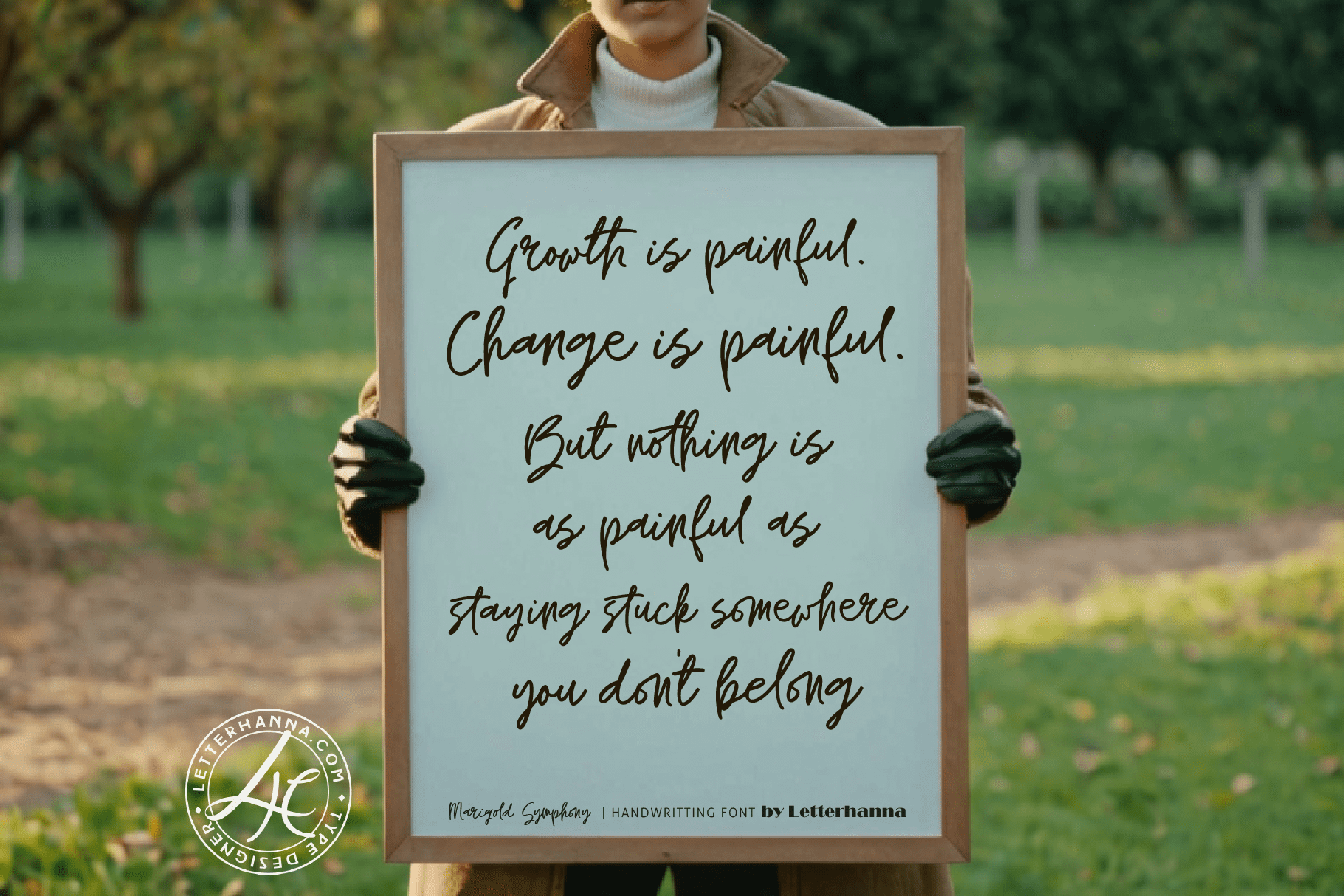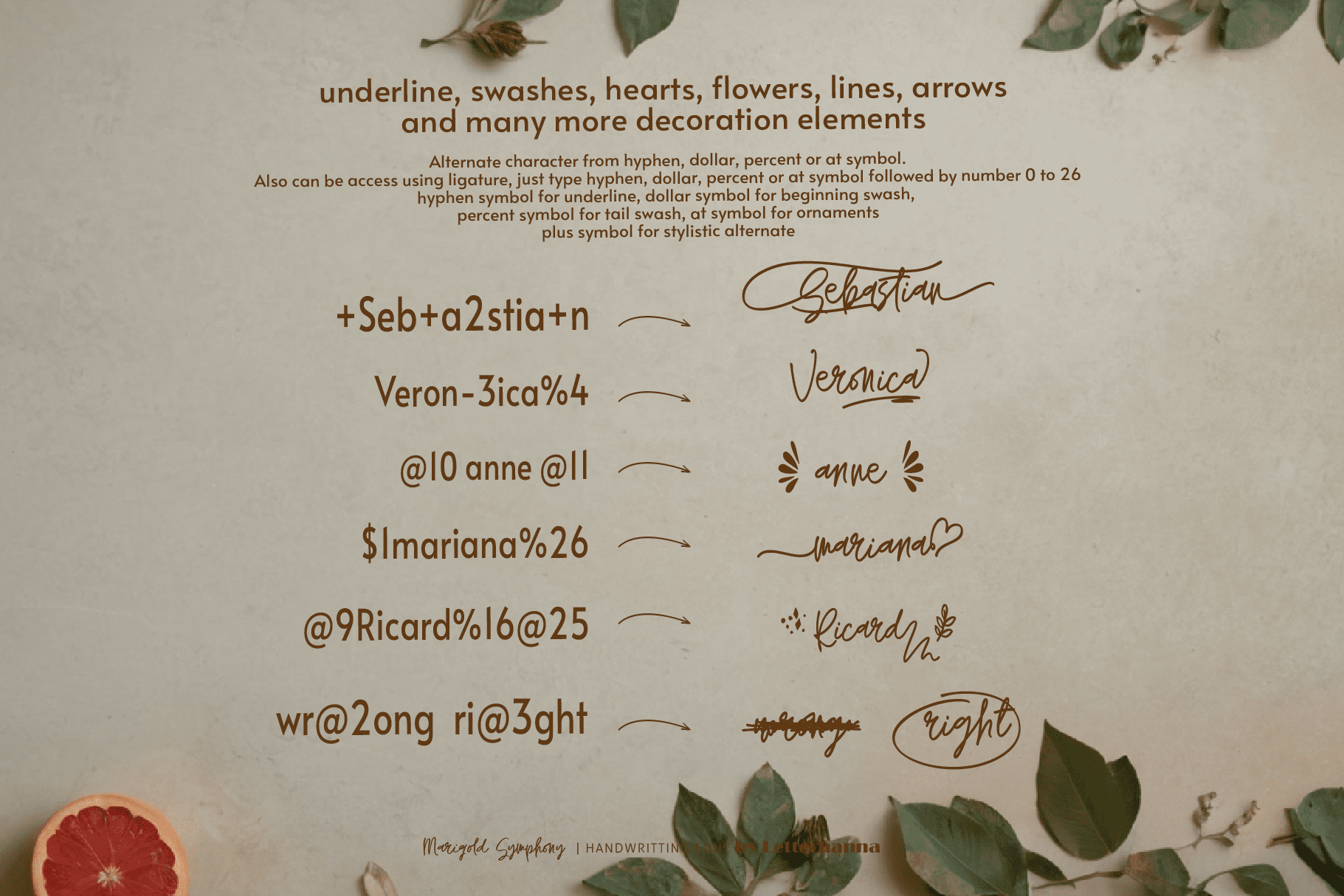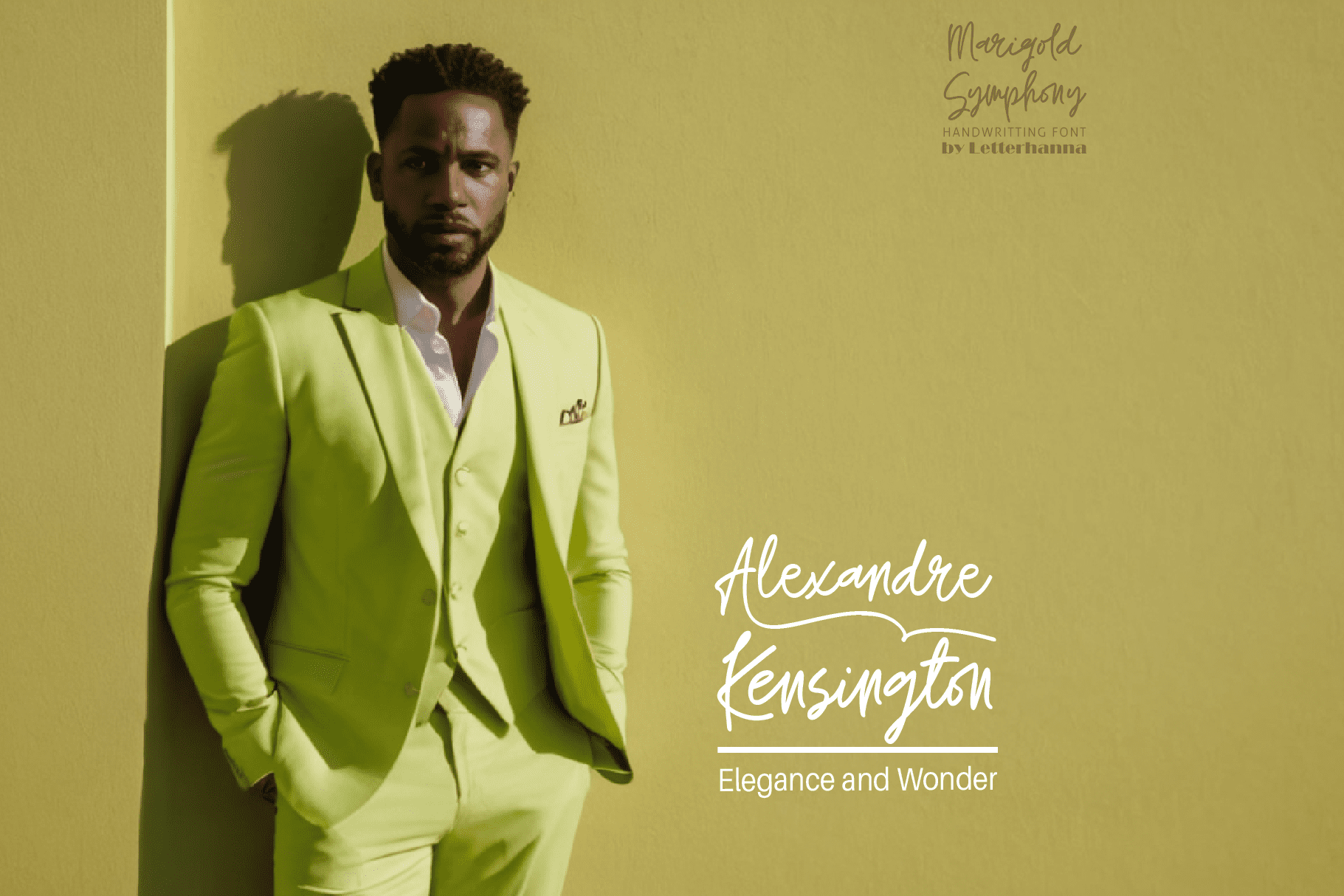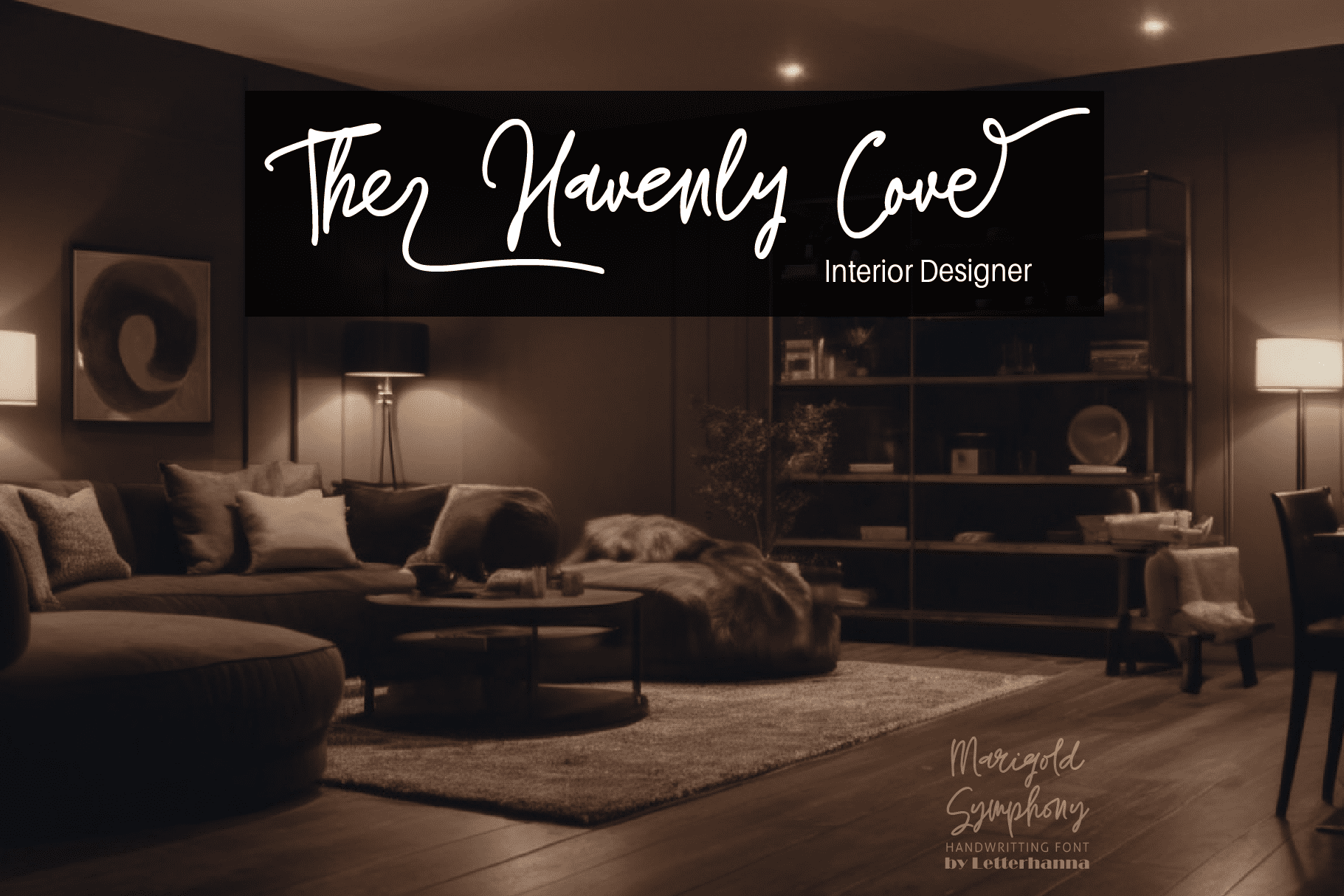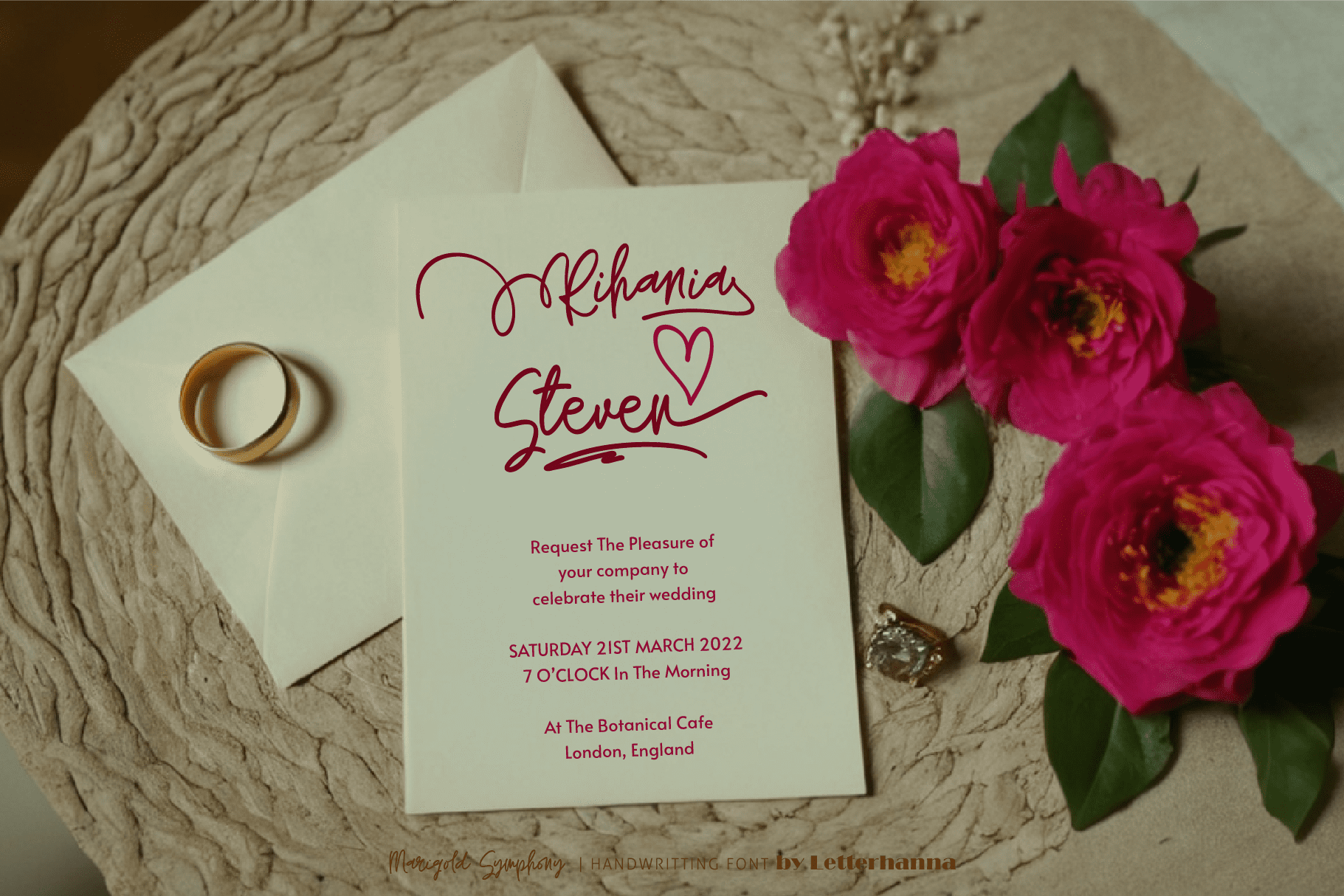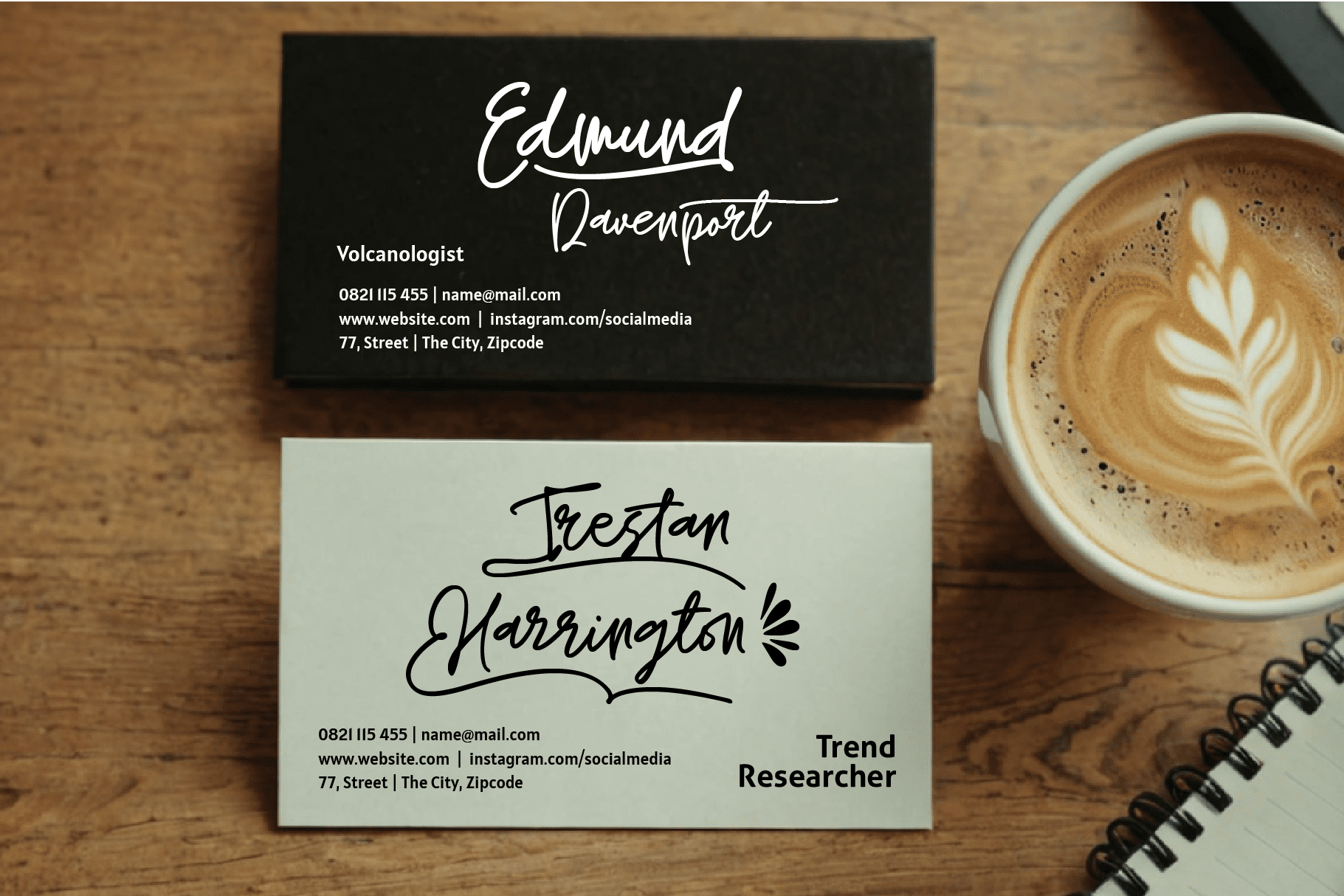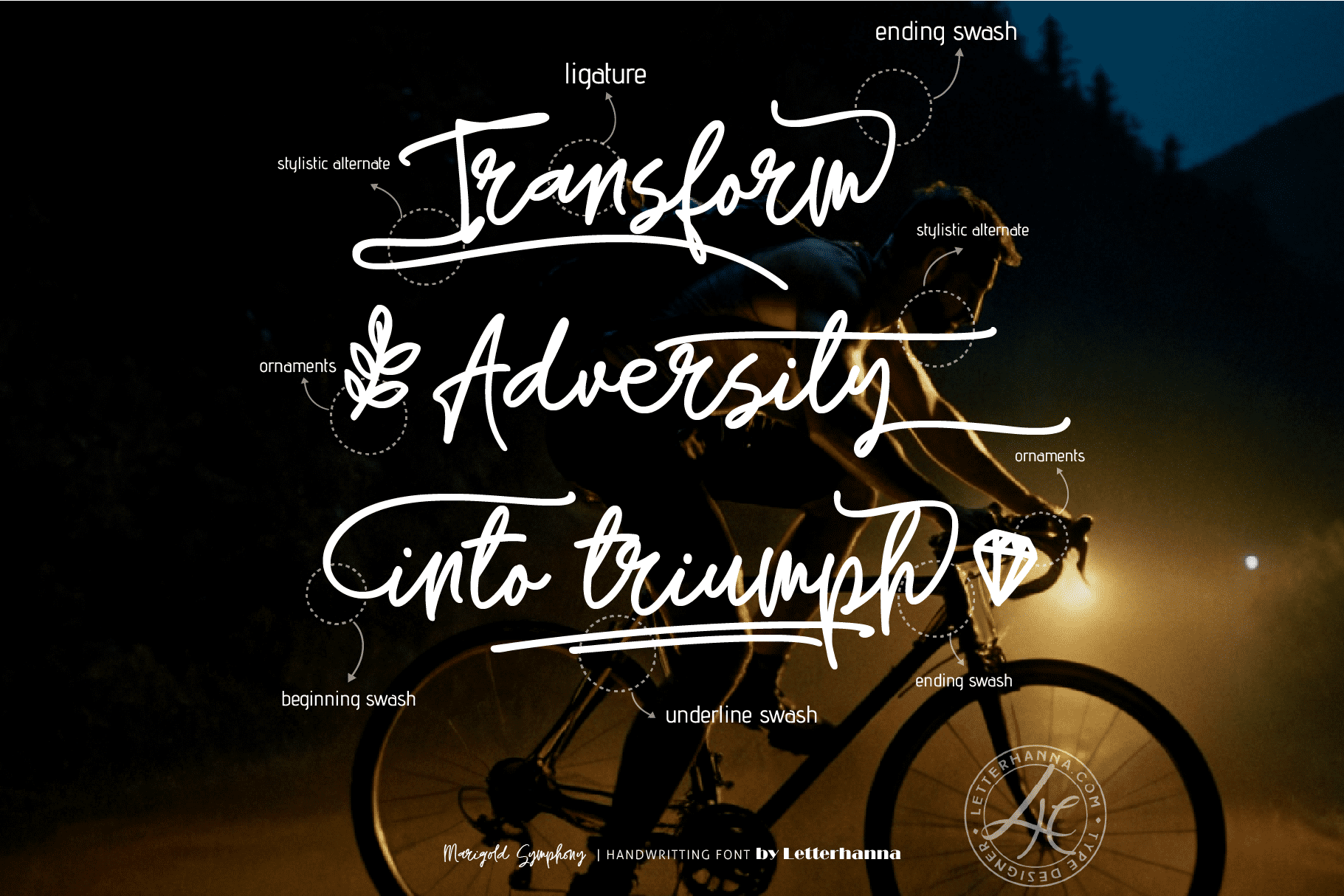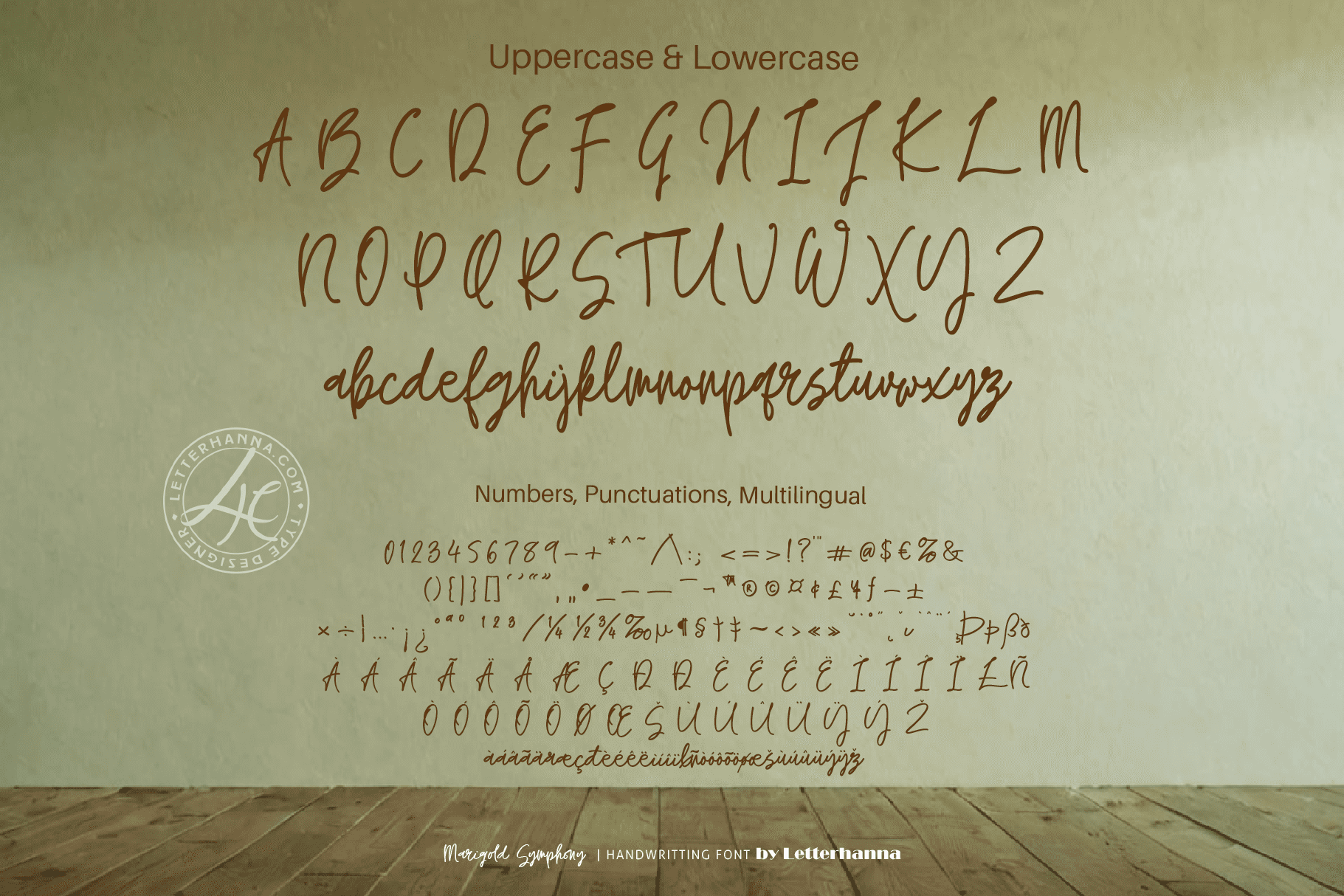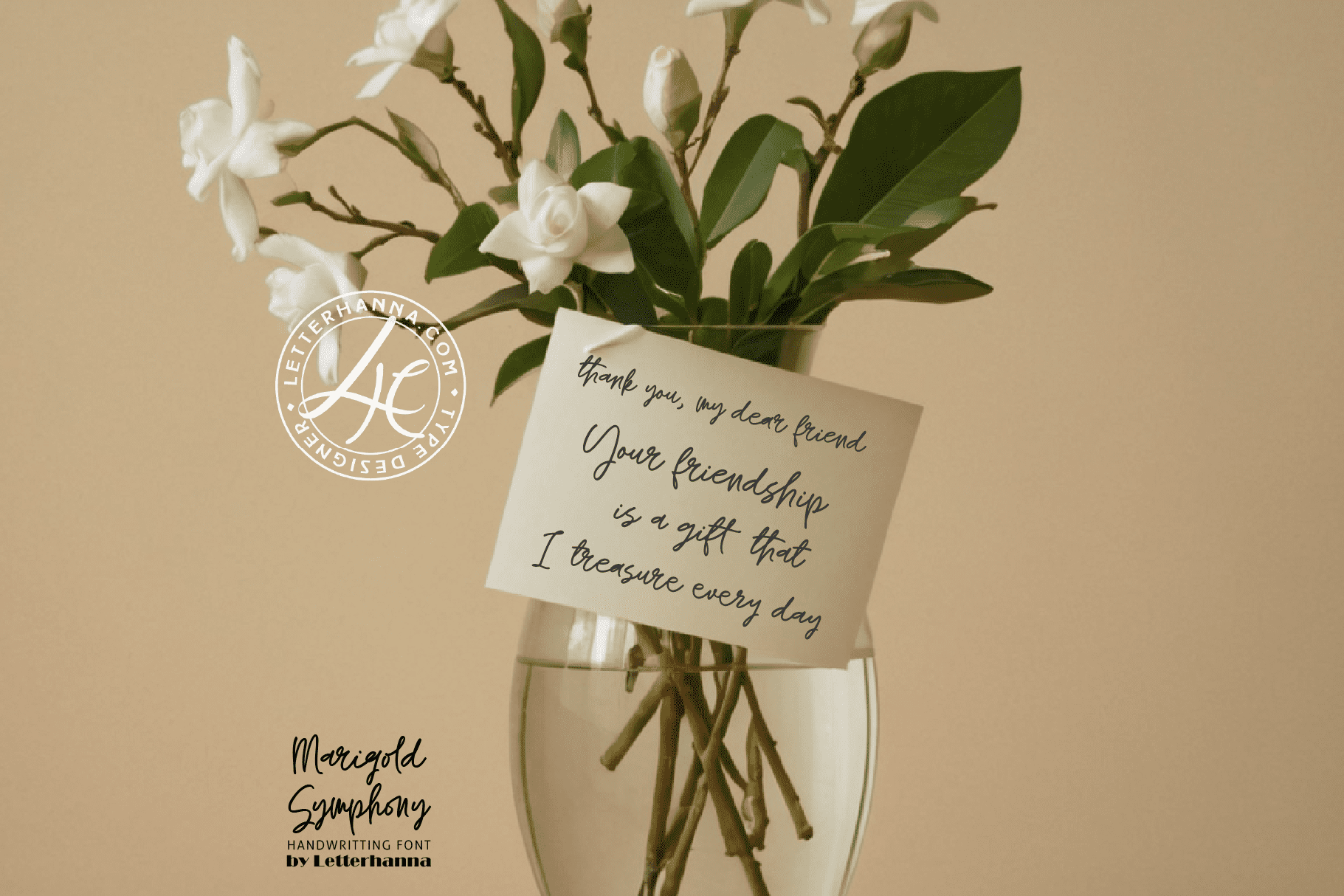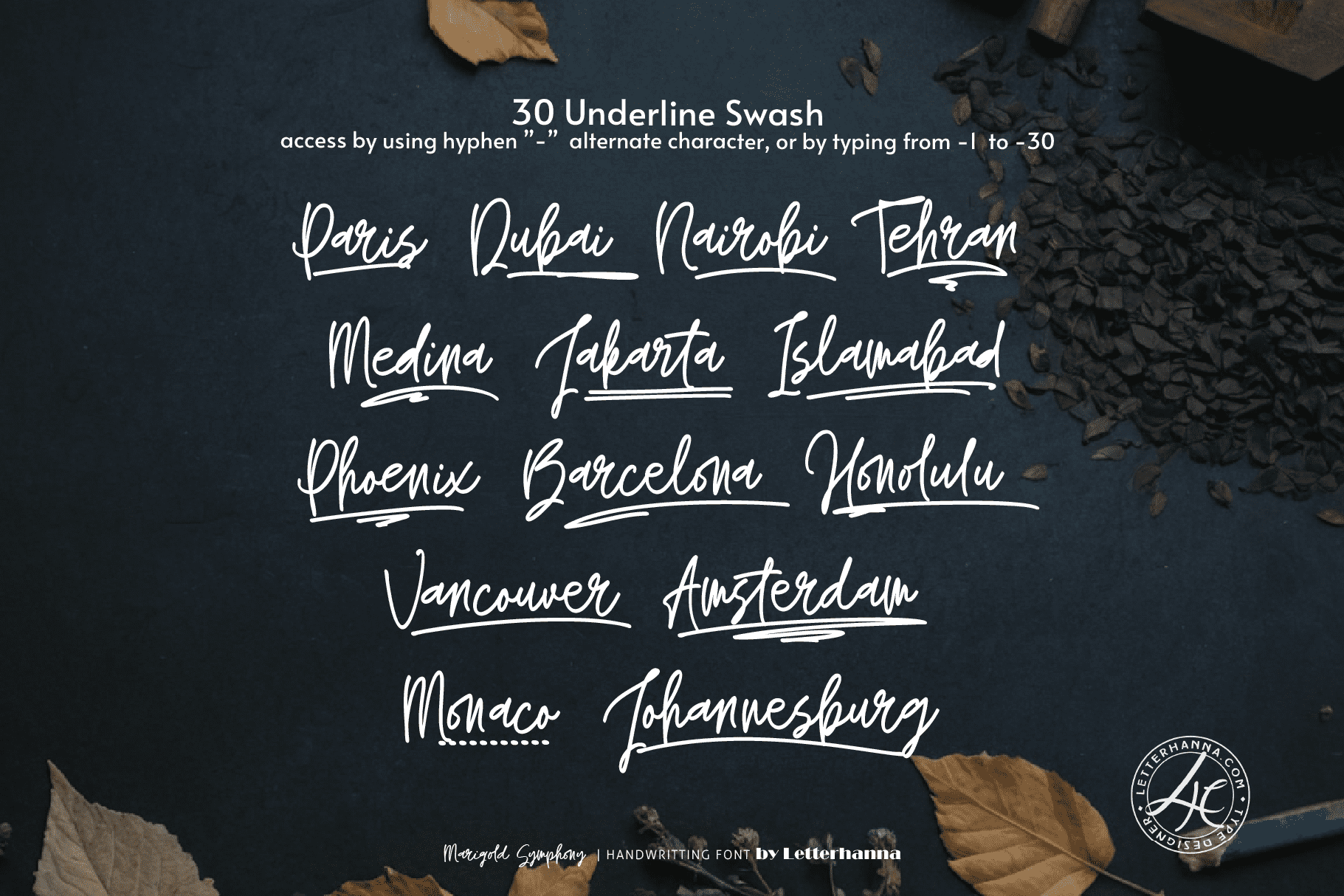
There’s a particular kind of magic that happens when a couple sits down to choose the words that will announce their new life together. Long before the flowers are ordered or the venue is booked, there’s a font β a quiet decision that somehow carries all the warmth of the day itself. If you’re searching for a married font that feels like it was written by hand on a slow, golden afternoon, let us introduce you to Marigold Symphony.
Marigold Symphony is a flowing script typeface built for exactly this kind of moment. It’s soft where it needs to be soft, bold where it needs to be bold, and endlessly romantic in between. Whether you’re designing save-the-dates, place cards, or the invitation suite itself, this font brings a sense of intimacy that printed text rarely achieves β the feeling that someone actually sat down and wrote your names with care.
The Shape and Style of Marigold Symphony
Look closely at the letterforms and you’ll notice they never quite sit still. The capital letters swing into generous loops, the lowercase letters lean gently into one another, and the connecting strokes move the eye forward the way a sentence spoken aloud would. It’s monoline in weight, meaning the stroke stays fairly consistent rather than shifting dramatically from thick to thin β which gives it a lighter, more personal feel, closer to a fountain pen letter than formal calligraphy.
This is part of what makes Marigold Symphony stand out among the best fonts for wedding invitations. Many script fonts in this category lean either too formal (stiff, symmetrical, corporate-elegant) or too casual (bouncy, childlike, disconnected). Marigold Symphony sits in the sweet spot: elegant enough for a black-tie affair, warm enough for a backyard celebration under string lights.
The Vibe: Quiet Romance, Not Loud Drama
If you had to describe the personality of this font in a single scene, picture this: a hand-addressed envelope, slightly weathered from travel, tied with twine, sitting on a wooden table beside a jar of marigolds. That’s the emotional register Marigold Symphony lives in β dreamy, unhurried, a little bohemian, and deeply personal. It doesn’t shout for attention the way some heavily decorated scripts do. Instead, it invites the reader in, the same way a beautifully written letter does.
This makes it one of the good wedding fonts for couples who want their stationery to feel less like a printed product and more like a keepsake. Years from now, when the invitation is tucked into a memory box, the handwriting-style lettering will still feel warm and specific β a real artifact of the day, not a generic template.
A Small Story
Think about the couple who met at a farmers market, both reaching for the same bunch of marigolds on a Saturday morning. Years later, when they finally sit down to plan their wedding, they want their invitation suite to whisper a little of that story β something organic, something that feels grown rather than manufactured. A font like Marigold Symphony does exactly that. It doesn’t need a literal marigold illustration to carry the feeling; the letterforms themselves seem to bloom and curl the way petals do. This is the quiet power of a well-designed script: it can hold a memory inside its shapes.
Of course, not every couple has a marigold-market origin story β but every couple has some detail, some private symbol, that they want their wedding invite fonts to gently reflect. Marigold Symphony is versatile enough to become that vessel, whether your theme is rustic garden, romantic vintage, or modern boho.
Why Designers Keep Reaching for It
Beyond weddings, Marigold Symphony has found its way into greeting cards, brand logos, product packaging, and social media graphics β anywhere a project calls for a script that feels human rather than digital. Its generous swashes on the capital letters make it a strong choice for a standalone monogram or wordmark, while the lowercase letters remain clean and legible enough for longer phrases like a vow or a quote.
Make It Yours
If you’ve been scrolling through countless typefaces trying to find the one married font that finally feels right, Marigold Symphony might be the answer you’ve been looking for. It’s the kind of typeface that turns a simple “Save the Date” into something a guest will want to keep pinned to their fridge.